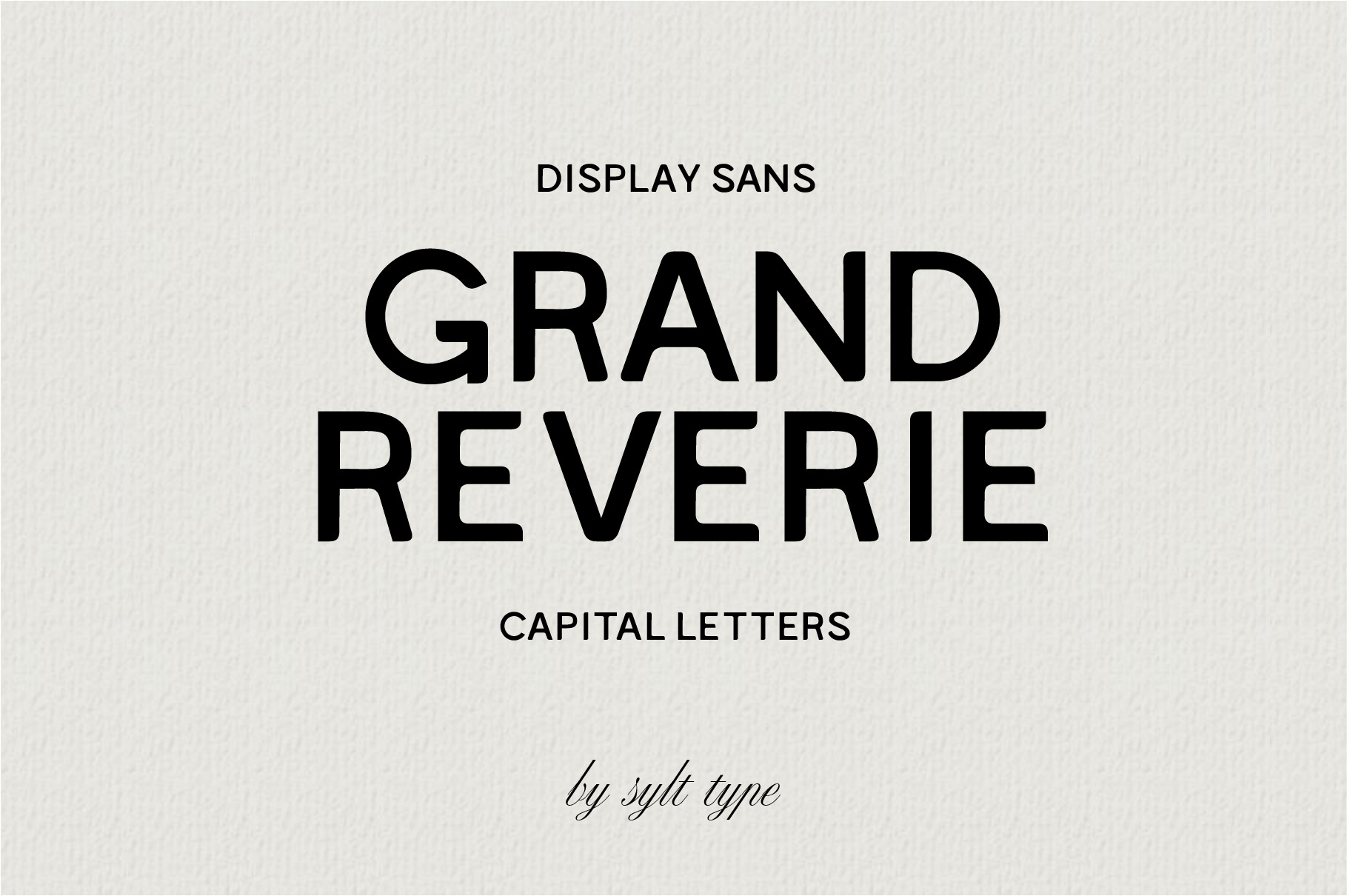
Grand Reverie Display Font
Grand Reverie is an all-caps display font perfect for your logo, website and product designs.
Capital letters & basic punctuation